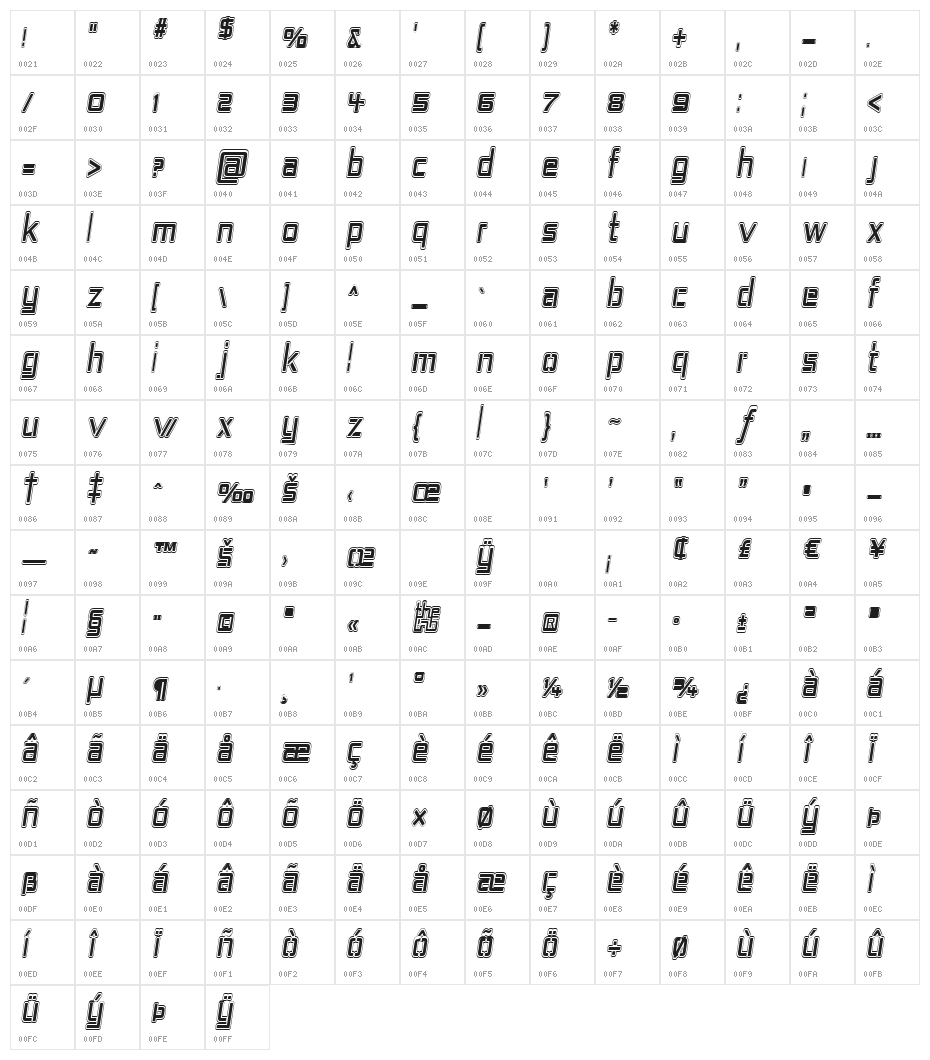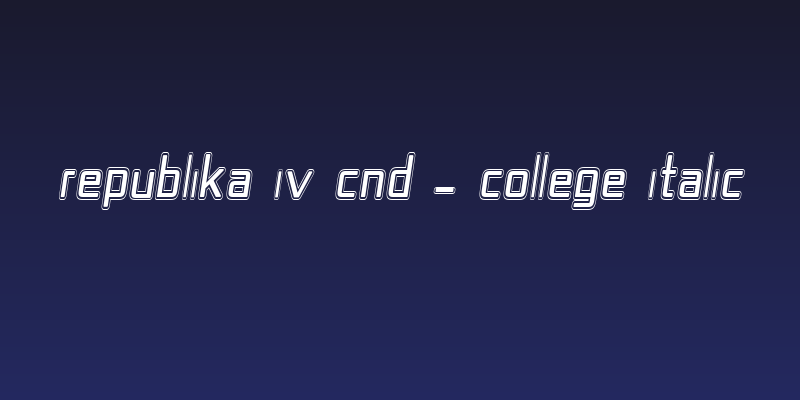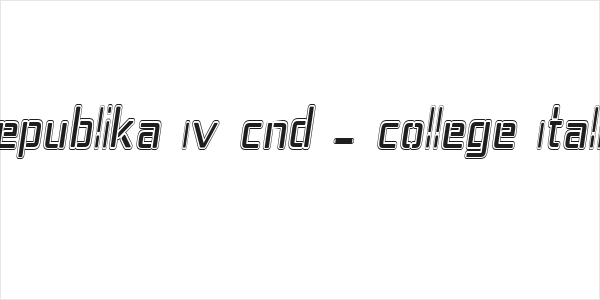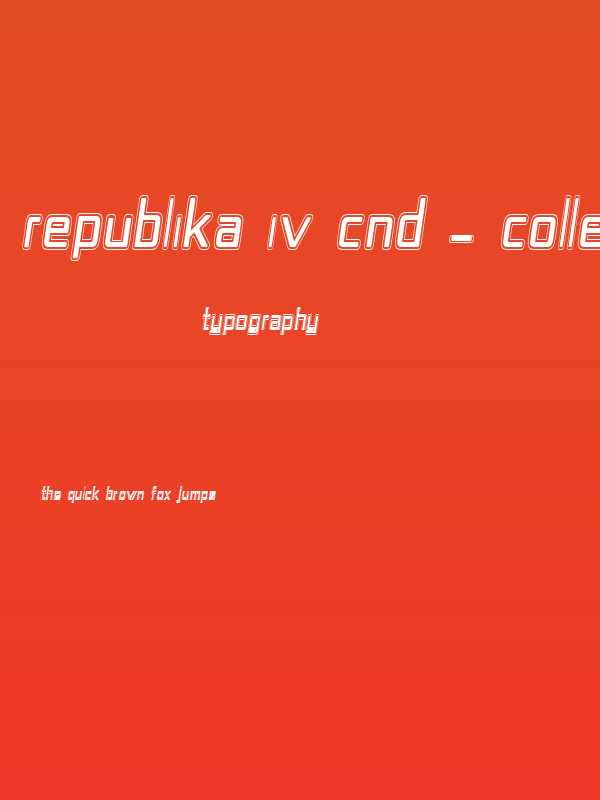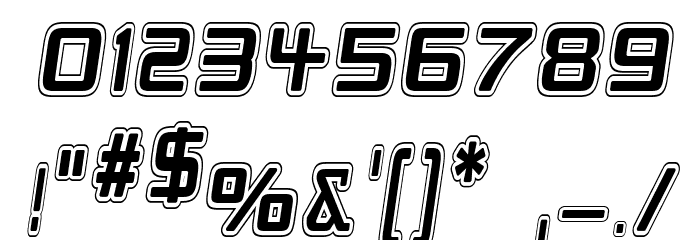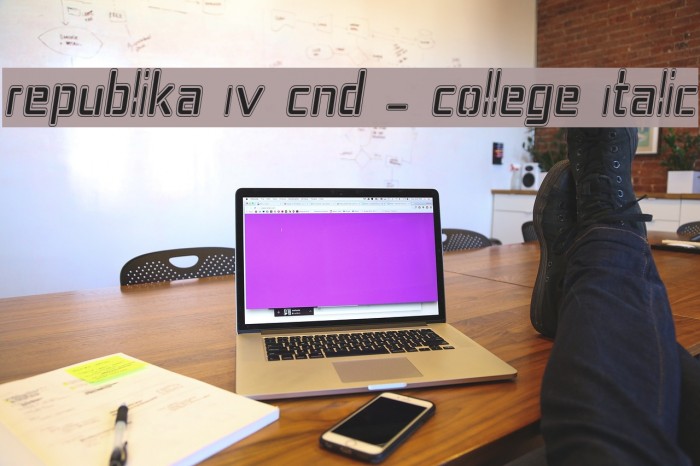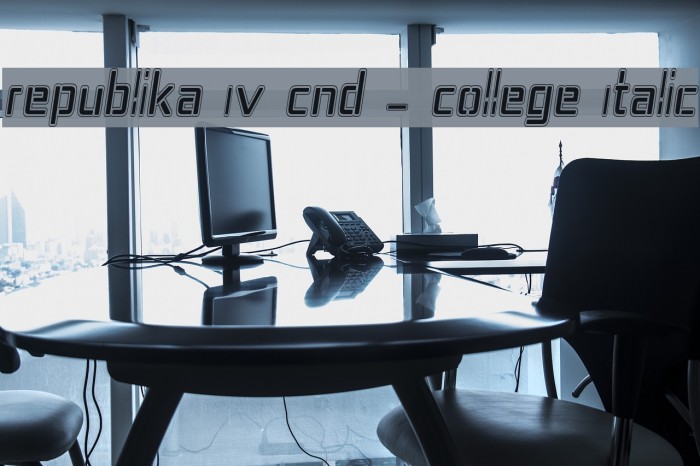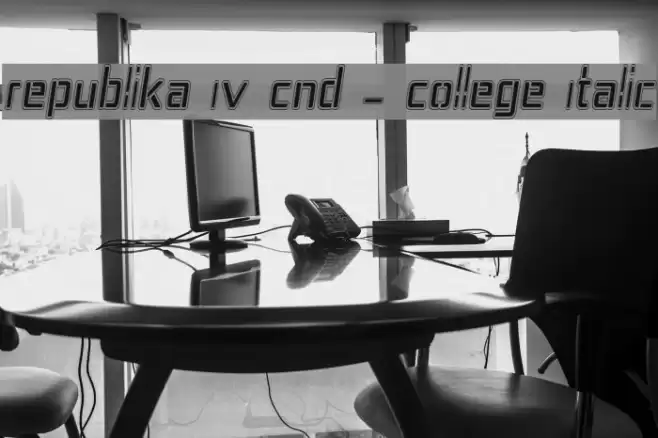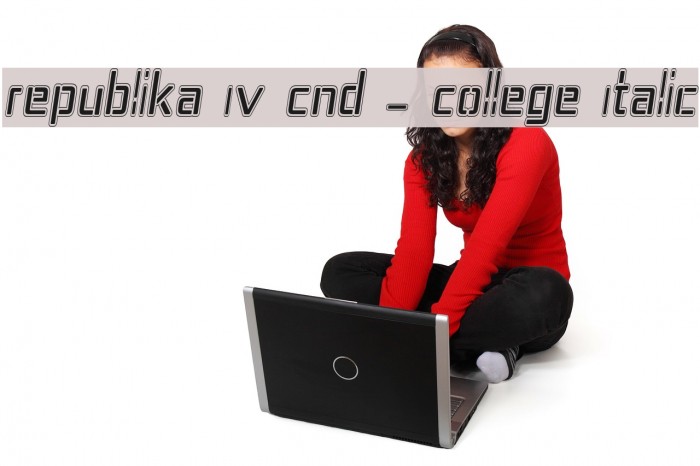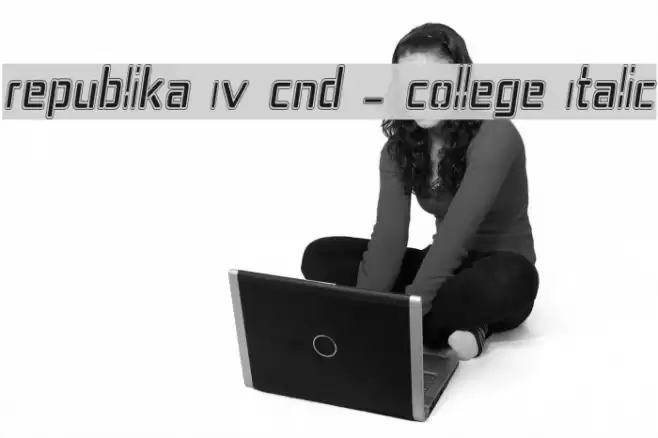
Republika IV Cnd - College Italic Font
Republika IV Cnd - College Italic Description
This font features a bold, collegiate style with a condensed and italicized form. The characters are outlined, giving them a distinct, layered appearance that adds depth and dimension. The uppercase and lowercase letters maintain a consistent height, contributing to a uniform look across the text. The numbers and special characters are designed to match the boldness and style of the letters, ensuring a cohesive appearance. The overall design is modern yet reminiscent of traditional college or varsity fonts, making it suitable for projects that require a sporty or academic aesthetic.
| Proposed Projects | Ideal for sports team branding, college event posters, or any project needing a bold, academic look. |